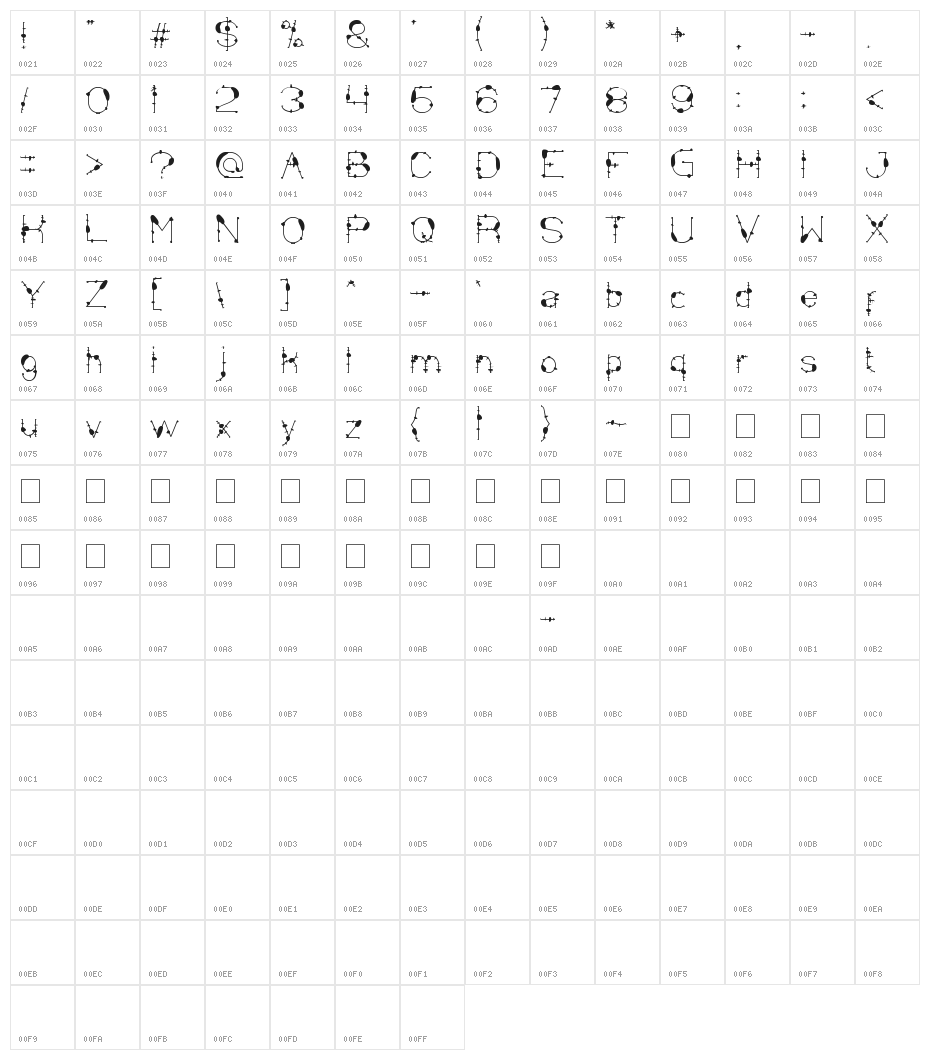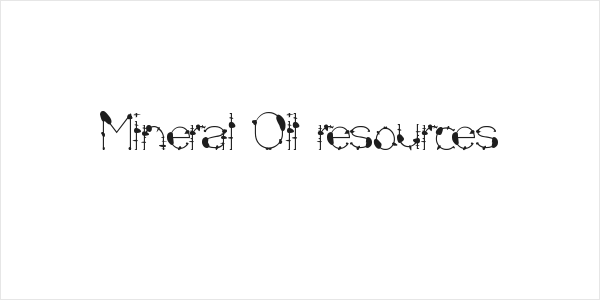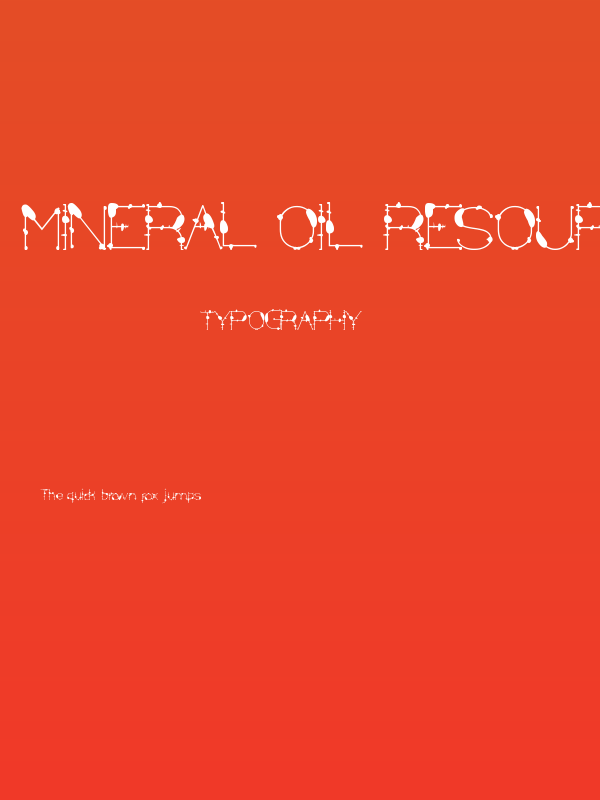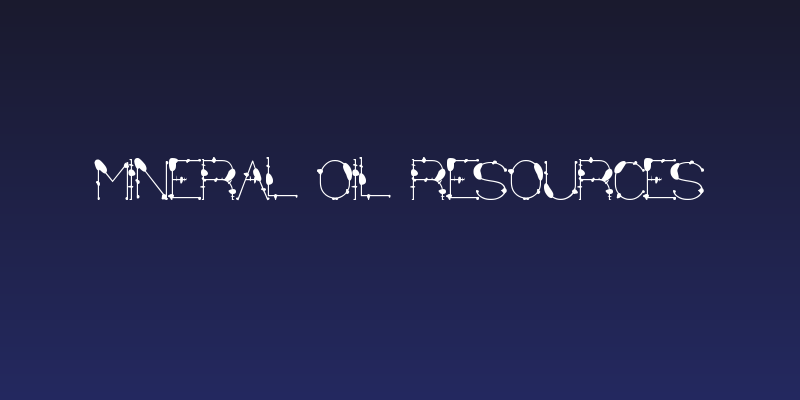
Mineral Oil resources Font
Mineral Oil resources Description
This font features a highly decorative and abstract design, characterized by its unique use of geometric shapes and lines. Each character is composed of a series of interconnected circles and lines, creating a futuristic and artistic appearance. The font's design is intricate, with varying stroke weights that add to its complexity and visual interest. The overall look is both modern and avant-garde, making it stand out as a statement piece in any design project. This font is not suited for body text due to its elaborate style, but it excels in creating eye-catching headlines and artistic compositions.
Overall StyleModern, Avant-garde
Use CaseHeadlines, Artistic compositions, Branding
Proposed ProjectsIdeal for use in modern art projects, futuristic branding, album covers, and experimental design work.